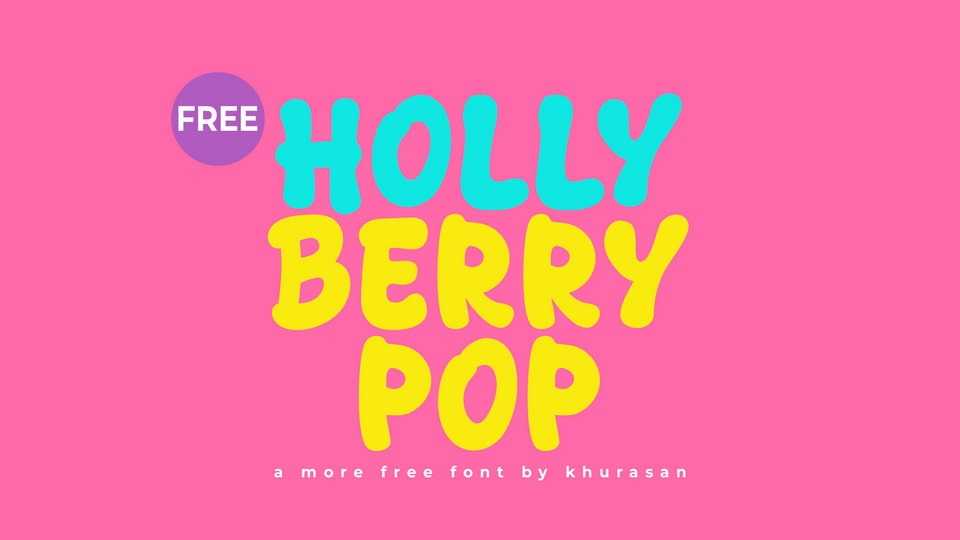
Download Holly Berry Pop font, a funny, energetic display typeface bursting with playful charm. Inspired by candy colors and holiday fun, its bold, rounded shapes give every word a joyful bounce.